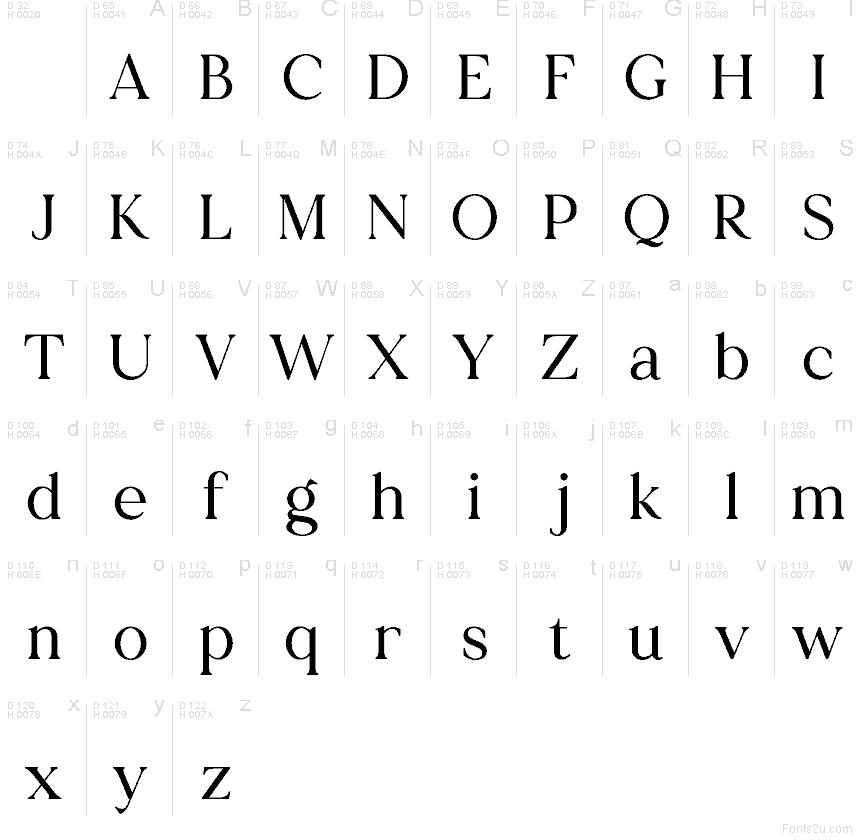
Bloryn
Bloryn font by VPcreativeshop is a free serif font that brings a refined editorial mood to anything it touches. The letters feel crisp and inky, with poised verticals and subtly flared curves that echo classic book typography but with a sharper, more contemporary bite. There’s a calm confidence in the spacing and proportions, so even a single word feels like a logo or magazine masthead.
Using Bloryn, you can instantly upgrade branding, book covers, magazine layouts, packaging, posters, and elegant social graphics. This free font shines when you give it room to breathe in headlines, chapter titles, or large pull quotes, then pair it with a clean geometric sans for smaller supporting text. Keep Bloryn a bit larger than your body copy so its delicate contrasts and sculpted details stay clear and luxurious.